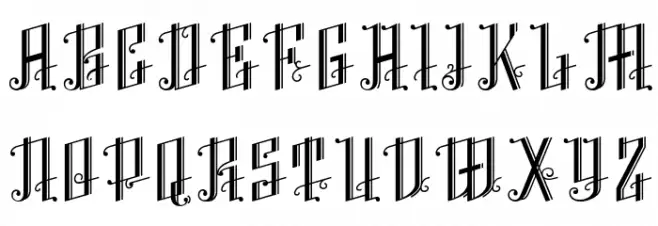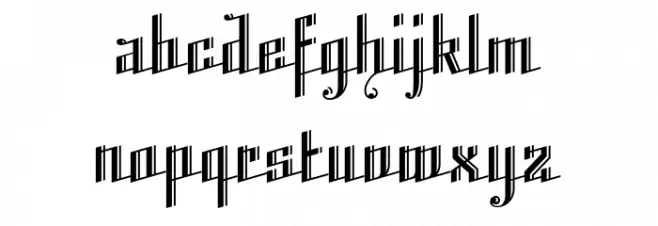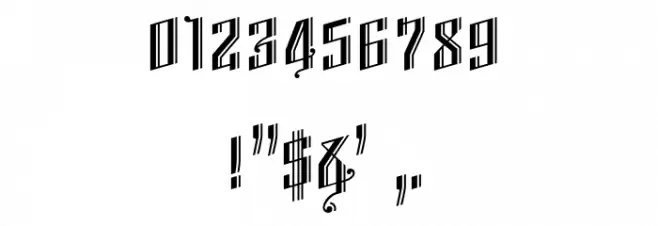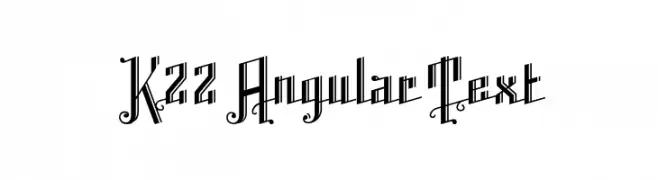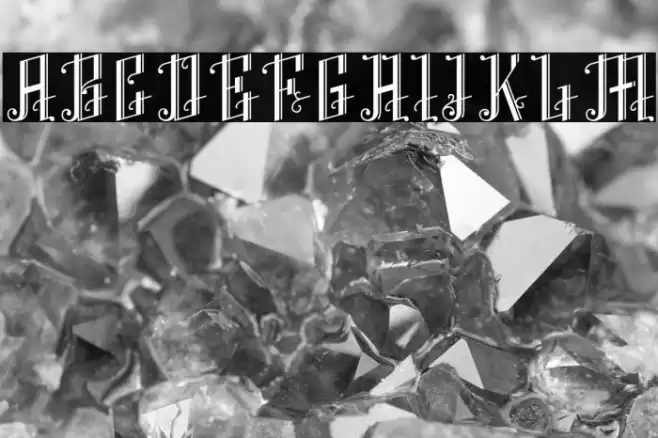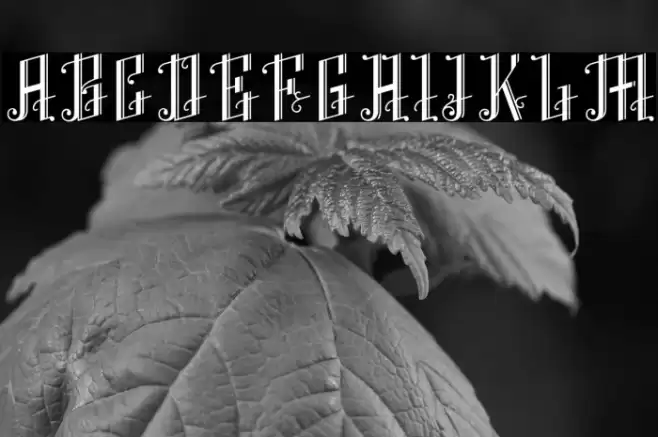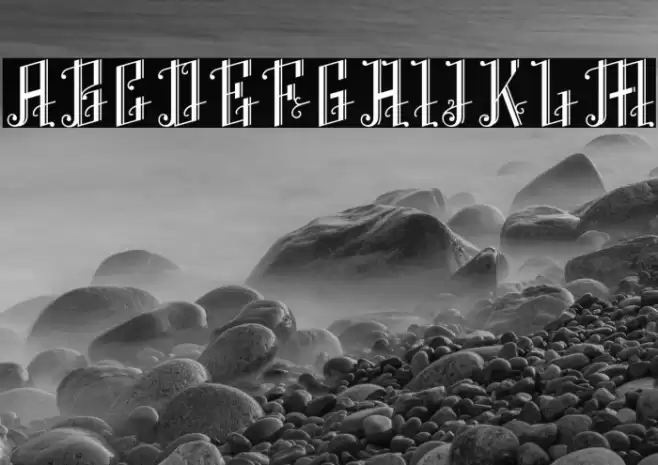
K22 Angular Text Font
Designed by Herman Ihlenburg for MacKellar, Smiths & Jordan. Patented on September 23, 1884.
Preserved by Dan X. Solo (1928-2012) in Decorative Display Alphabets (Dover Publications, 1990)